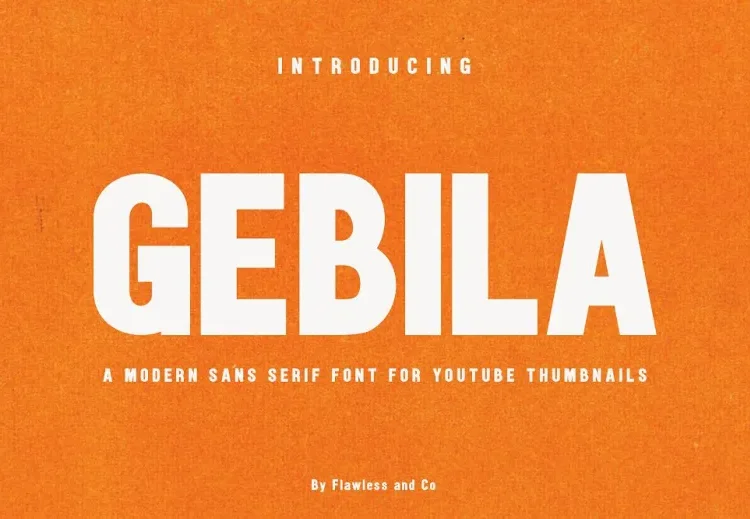
Gebila Font
Gebila is a dynamic typeface designed to make your YouTube thumbnails stand out with its aggressive and eye-catching style. Its simple and sleek design gives it a modern and professional look that fits seamlessly with a wide range of YouTube channels and other graphic needs.
Featuring a mix of connected letters and alternates, Gebila is versatile enough for various applications, including branding, t-shirts, print materials, business cards, logos, posters, photography, quotes, and more. Whether you’re looking to add a bold touch to your designs or enhance visual impact, Gebila is a strong choice.